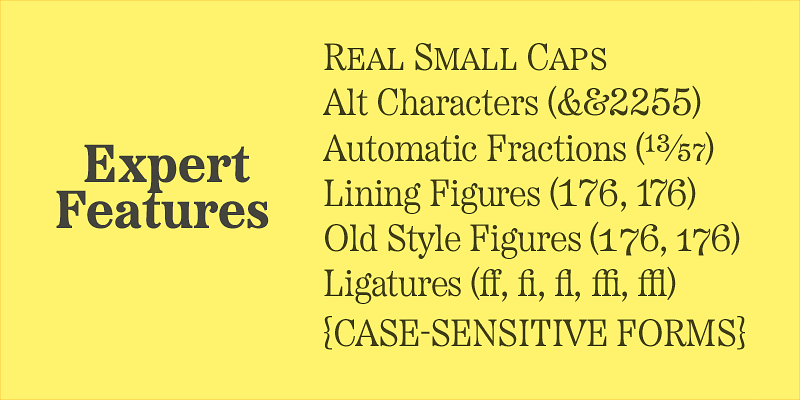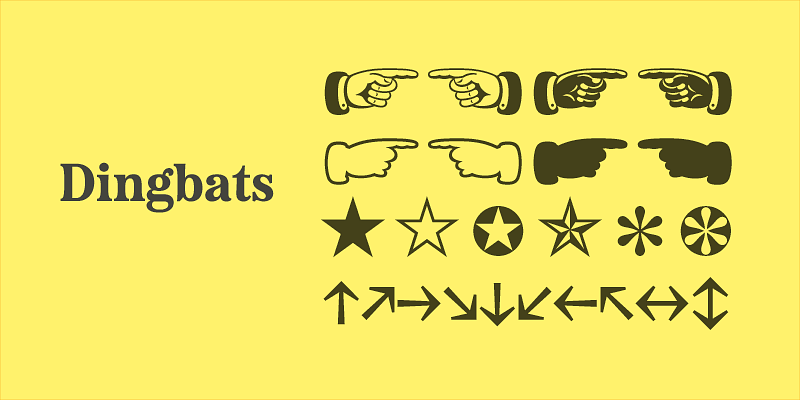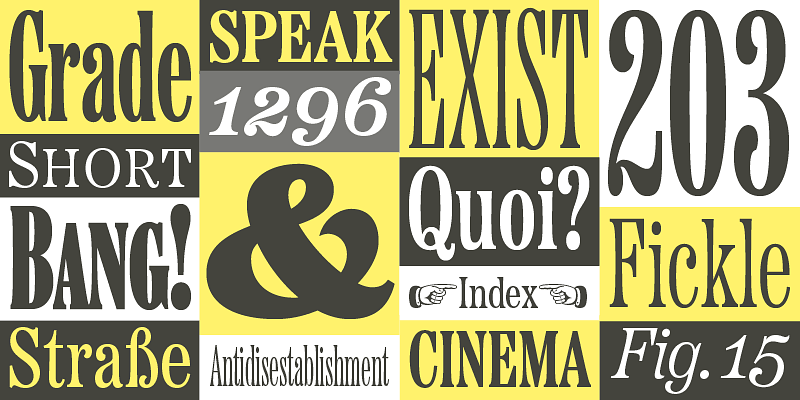
Etna Font
The Etna Font is perfect for powerful brand identities, volcanic energy campaigns, geological research publications, natural science communications, adventure tourism branding, earth science educational materials, environmental documentary graphics, outdoor expedition logos, geological survey reports, and dynamic earth-themed presentations.
What makes the Etna Font so exciting is its explosive combination of geological strength with volcanic energy that creates an unmistakable force of nature perfect for projects demanding raw power and natural authenticity. This commanding typeface features robust letterforms, dynamic character construction, and earth-inspired design elements that perfectly capture the essence of volcanic power and geological magnificence. The font's volcanic personality and natural strength make it an exceptional choice for earth science organizations, adventure brands, and environmental projects seeking to communicate natural force, geological wonder, and authentic earth energy with powerful visual impact.
The Etna Font family includes volcanic variations and geological alternates, featuring multiple strength levels, earth-inspired character options, and natural force styling elements. Each variation maintains the signature volcanic appeal while offering different degrees of geological intensity and natural expression, giving designers extensive creative possibilities for crafting powerful earth communications and dynamic natural brand personalities that embody the spirit of volcanic energy.
This exceptional Etna Font Free Download represents the ultimate geological typography solution for organizations who need authentic earth-force aesthetics that resonate with natural science communities and adventure-seeking audiences. Whether you're developing geological research identities, creating earth science educational content, or designing adventure tourism campaigns, this versatile volcanic font delivers explosive results that connect with audiences seeking genuine natural power and geological authenticity.
The powerful geological characteristics of Etna Font showcase masterful earth-inspired typography design, with each letter featuring volcanic construction elements and natural force details that enhance its geological credibility and earth science authenticity. The font's comprehensive character set includes uppercase and lowercase letters, numerals, earth science punctuation, and geological symbols, ensuring complete functionality for diverse natural science projects and international geological applications.
Specifically engineered for both digital and print earth science applications, this remarkable font maintains its volcanic character and geological integrity across all sizes and formats. From large-scale earth science displays to detailed geological documentation, Etna Font performs exceptionally while preserving its distinctive natural force personality and authentic volcanic appeal.